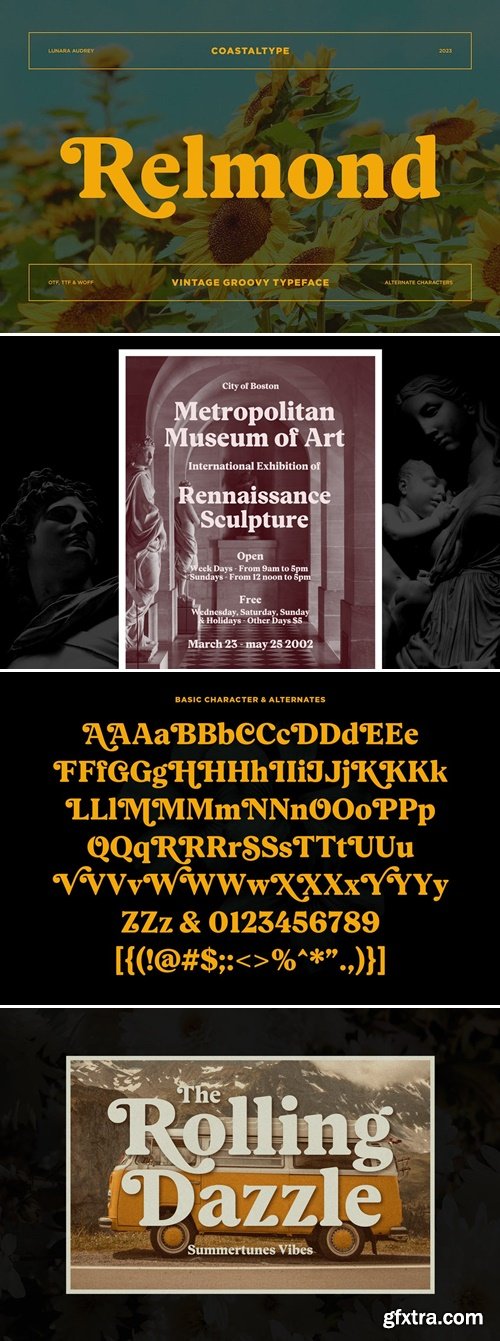
Relmond Font
Relmond is a display rounded serif font inspired from 1970s typefaces. Despite its vintage flair, Relmond font is perfectly adaptable for any contemporary context with rounded serifs and a fluffy overall appearance.